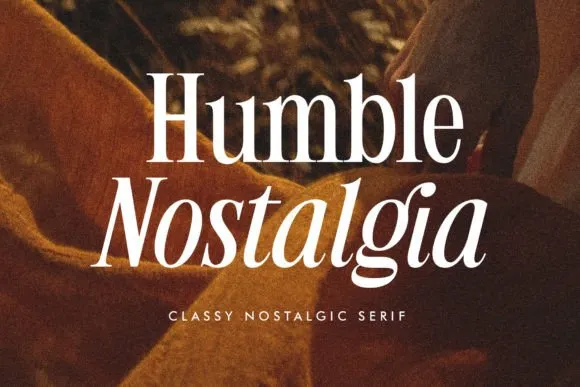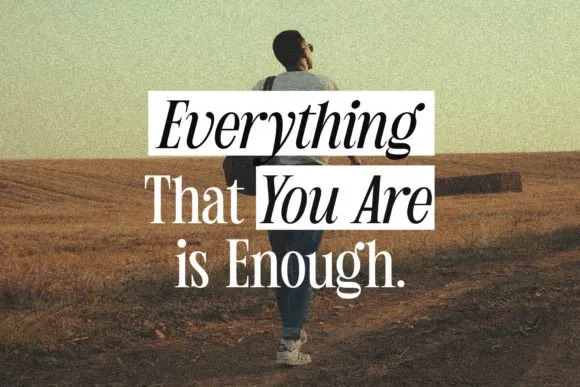
Free Nostalgia Beauty Font
Experience the classic feel with Nostalgia Beauty Font. A classy and elegant serif font that will transport you to the 80s era.
Designed with tight kerning and spacing to achieve a more aesthetically pleasing appearance, these are specially crafted with a modern twist.
A perfectly versatile font pair suitable for fashion, cosmetics, lifestyle, posters, branding, logos, logotypes, weddings, invitations, quotes, and much more.